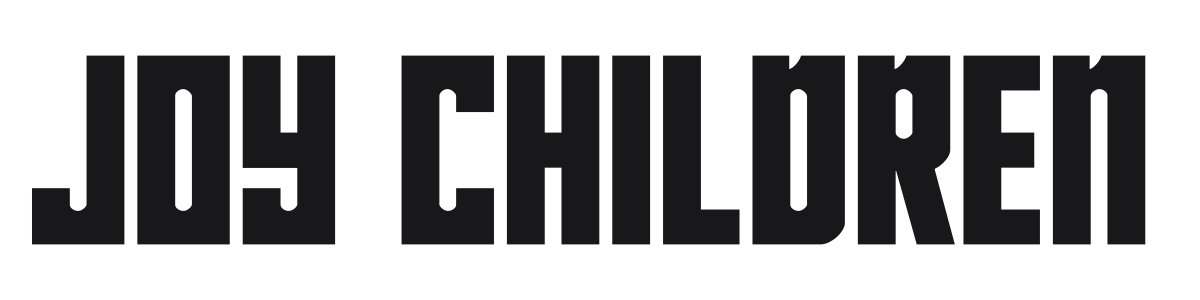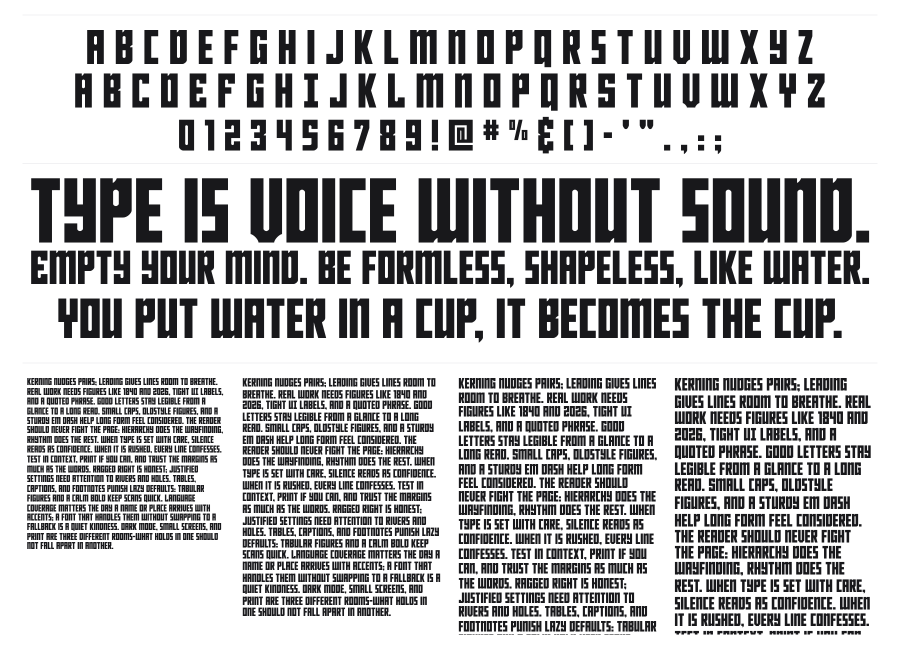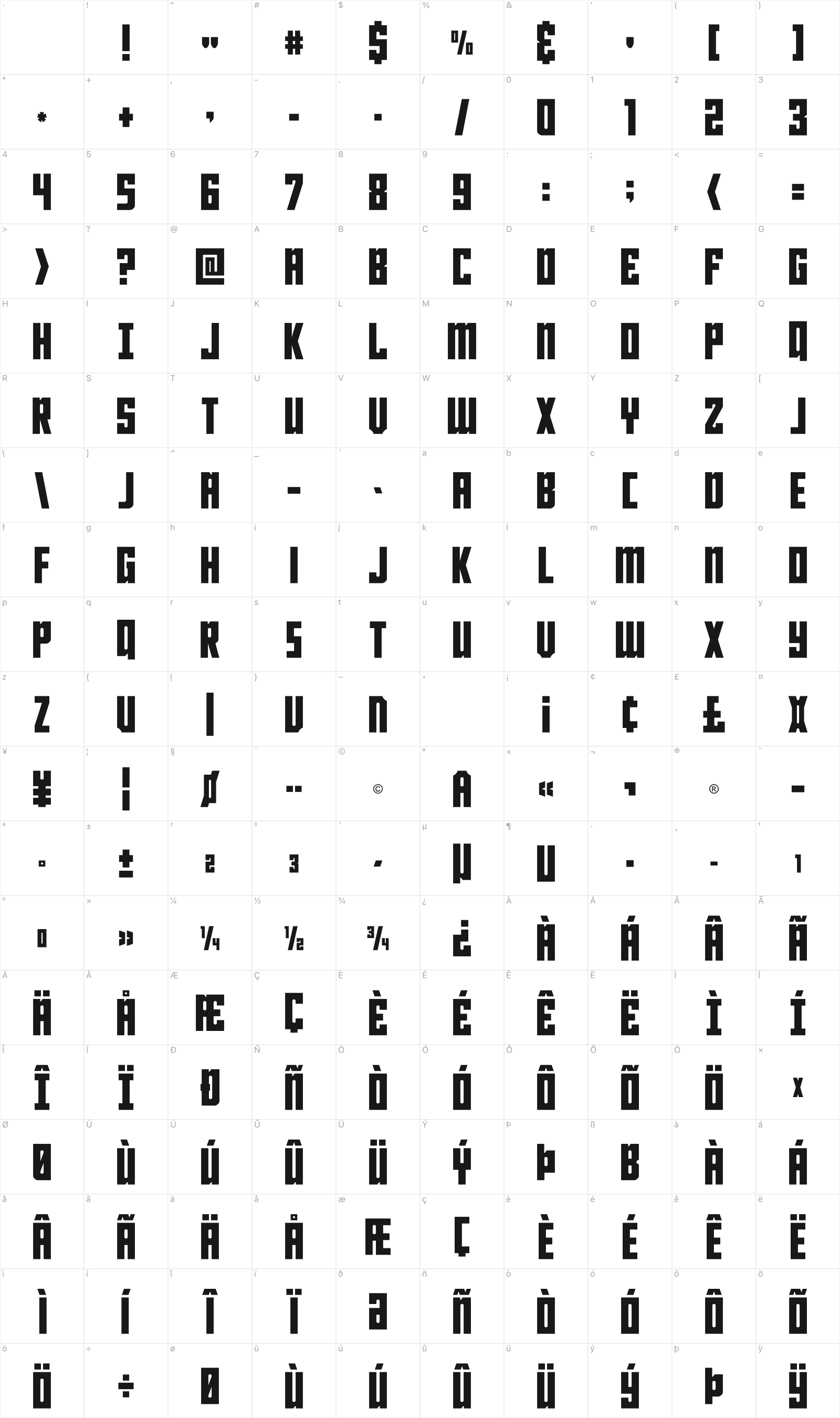
Joy Children
Joy Children is an ultra-condensed, heavy display sans from Iconian Fonts with a bold comic-book personality. The blocky characters feature flat terminals, angular notched joints, and tightly packed forms that create a dense, punchy texture at any size. It carries the energy of 1970s action graphics and works hard in titles, posters, and anywhere a loud retro voice is needed.